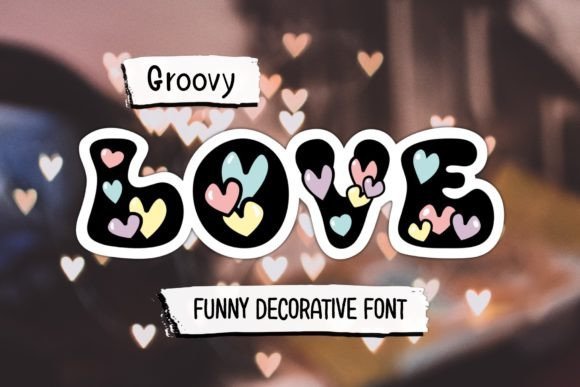
When Fonts Bring Joy to Our Designs
We’ve all been there – staring at a blank canvas, trying to decide on the perfect font to bring our creative vision to life. It’s in these moments that we often find ourselves daydreaming about the perfect combination of style and whimsy. And that’s exactly what the Groovy Love Font is all about – adding a dash of fun and playfulness to our designs.
This charming font is designed to brighten up even the most mundane projects, making it a valuable addition to any designer’s toolkit. Whether you’re working on a romantic wedding invitation, a children’s book, or a social media campaign, the Groovy Love Font is sure to add a touch of personality and charm. With its quirky and whimsical feel, this font is perfect for designers who want to add a little extra love to their work.
Groovy Love Font Key Features
- Font Family: Groovy Love Font is a sans-serif font designed to evoke a sense of playfulness and fun.
- Character Set: The font includes a comprehensive set of characters, including uppercase and lowercase letters, numerals, punctuation marks, and special characters.
- Unique Characteristics: The font’s distinctive rounded edges, exaggerated letterforms, and quirky details give it a one-of-a-kind personality that’s sure to add a touch of whimsy to any design.
Groovy Love Font Review
I recently had the chance to work with the Groovy Love Font, and I must say, it’s a unique and quirky addition to any design project. Here’s my honest take on what works well and what doesn’t.
- Fun and playful vibe: The font’s retro aesthetic is perfect for projects that need a carefree and whimsical feel.
- Good legibility: Despite its unconventional design, the font is still easy to read, making it a great choice for body text or short headlines.
- Customization options: The font comes in a variety of styles and weights, allowing you to customize it to fit your design needs.
- Not ideal for formal projects: The font’s playful nature may not be suitable for professional or formal projects, where a more serious tone is required.
- Limited support for special characters: I encountered some issues with special characters, such as accented letters and punctuation marks, which didn’t render properly in some applications.
The Groovy Love Font is a great choice for designers who want to add a touch of fun and personality to their projects. While it may not be suitable for every project, its unique style and customization options make it a valuable addition to any design toolkit.
The Groovy Love Font is perfect for adding a touch of whimsy and romance to your designs. Use it for:
- Valentine’s Day and anniversary cards
- Love-themed social media graphics
- Personalized gifts and decorations
Alternative Fonts to Groovy Love Font
Pacifico is a beautiful, elegant script font ideal for designs that require a touch of sophistication and romance. It’s perfect for wedding invitations, greeting cards, and other formal events.
Compared to Groovy Love Font, Pacifico has a more refined and classic look, making it suitable for formal designs. While Groovy Love Font is playful and fun, Pacifico is ideal for more formal and elegant designs.
Great Vibes is a modern, cursive script font that’s perfect for designs that require a fun and energetic vibe. It’s ideal for social media posts, advertisements, and other casual designs.
Compared to Groovy Love Font, Great Vibes has a more modern and trendy look, making it suitable for designs that require a youthful and energetic feel. While Groovy Love Font is playful, Great Vibes is more dynamic and attention-grabbing.